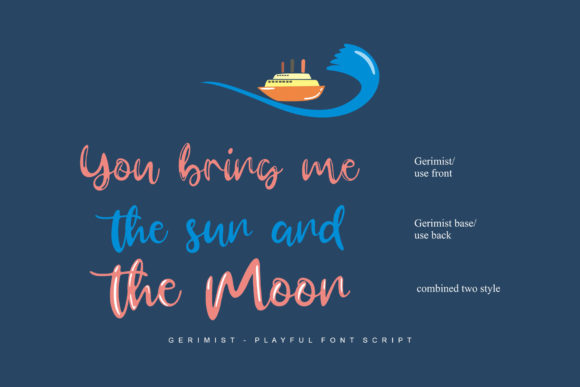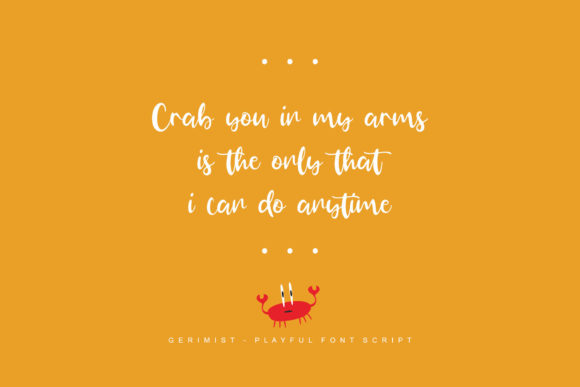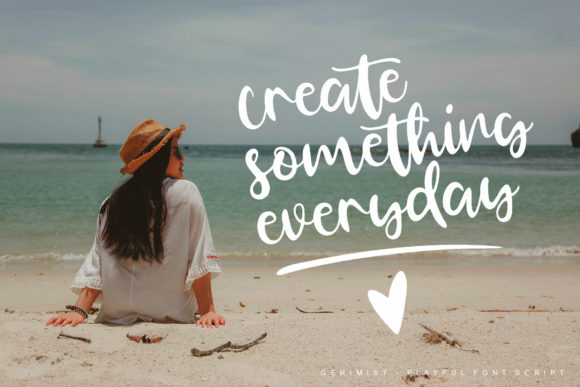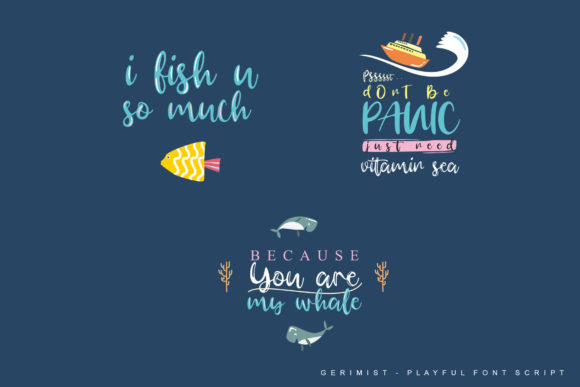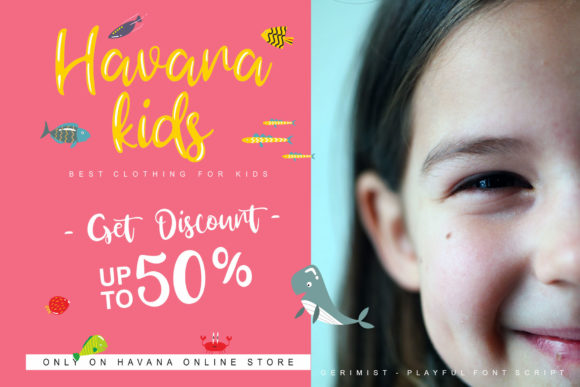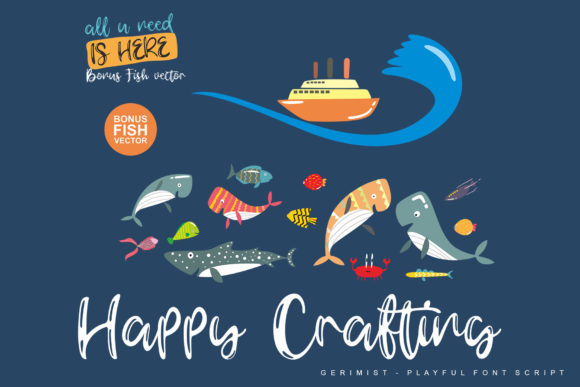
Introducing Gerimist Font: The Quirky and Authentic Handwritten Font
In the world of typography, fonts play a crucial role in bringing creative ideas to life. Among the numerous fonts available, Gerimist font stands out for its unique blend of fun, quirkiness, and authenticity. This enchanting handwritten font has the power to transform any design concept into a true standout, making it a favorite among designers and crafters.
The Charm of Gerimist Font
Gerimist font embodies the perfect balance of playfulness and elegance, making it an excellent choice for a wide range of design projects. Its handwritten style gives it a personal touch, as if written with a pen or pencil. The font’s quirky and authentic feel makes it ideal for designs that require a dash of personality, such as branding, packaging, and advertising materials.
Key Features of Gerimist Font
- Handwritten style: Gerimist font boasts a genuine handwritten look, complete with subtle imperfections and variations in letterforms.
- Quirky and fun: The font’s playful nature makes it perfect for designs that require a lighthearted and humorous approach.
- Authentic feel: Gerimist font has a genuine, down-to-earth feel that resonates with audiences.
- Highly versatile: The font is suitable for a wide range of design projects, from digital media to print materials.
Use Cases for Gerimist Font
Gerimist font is an excellent choice for various design projects, including:
- Branding and logos: The font’s unique personality makes it perfect for creating memorable brand identities.
- Packaging design: Gerimist font adds a touch of whimsy and playfulness to product packaging, making it stand out on store shelves.
- Advertising and marketing materials: The font’s quirky nature makes it ideal for creating eye-catching ads and promotional materials.
- Digital media: Gerimist font is suitable for use in digital platforms, such as social media graphics, blog posts, and website headers.
Tips for Using Gerimist Font Effectively
To get the most out of Gerimist font, consider the following tips:
- Pair with neutral fonts: Combine Gerimist font with neutral fonts to create visual interest and balance.
- Experiment with colors: The font’s playful nature lends itself well to bold and bright color schemes.
- Use in moderation: While Gerimist font is attention-grabbing, use it judiciously to avoid overwhelming the design.
Gerimist font is a unique and captivating handwritten font that brings a dash of fun, quirkiness, and authenticity to any design project. Its versatility, charm, and playfulness make it an excellent choice for designers and crafters looking to create standout designs. With its wide range of use cases and tips for effective use, Gerimist font is sure to become a favorite in the world of typography.